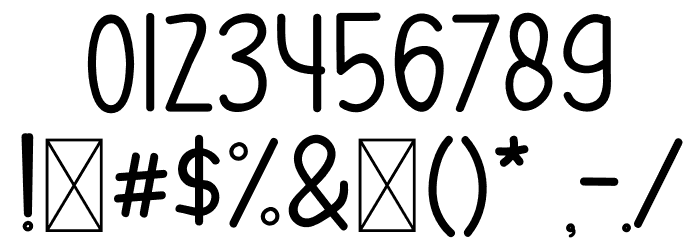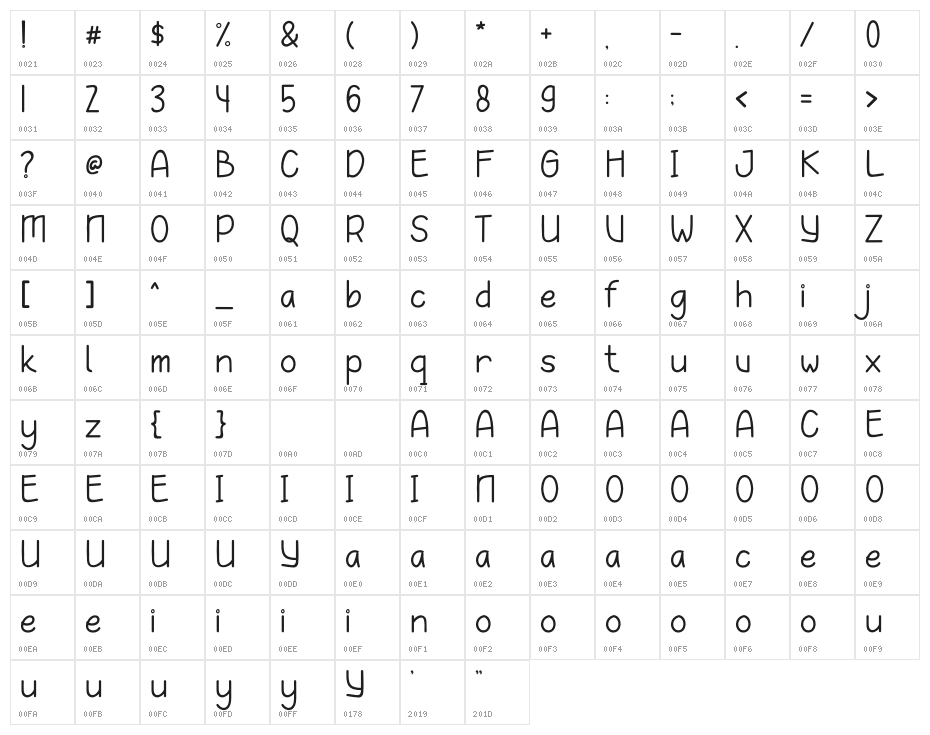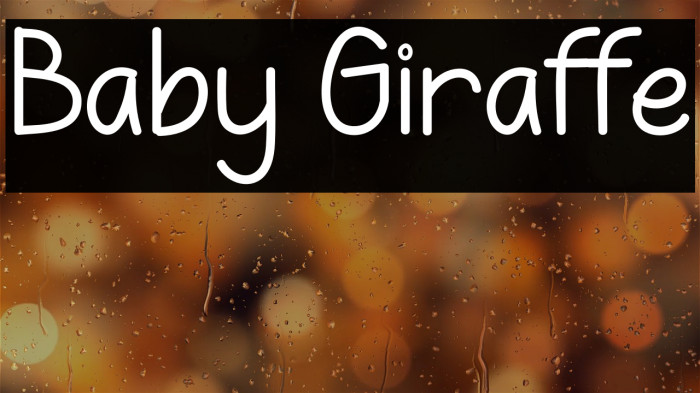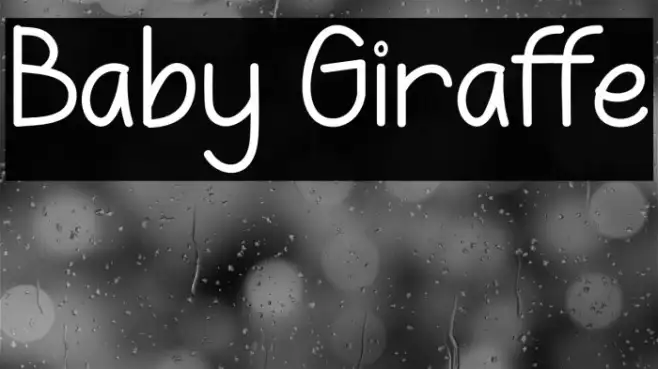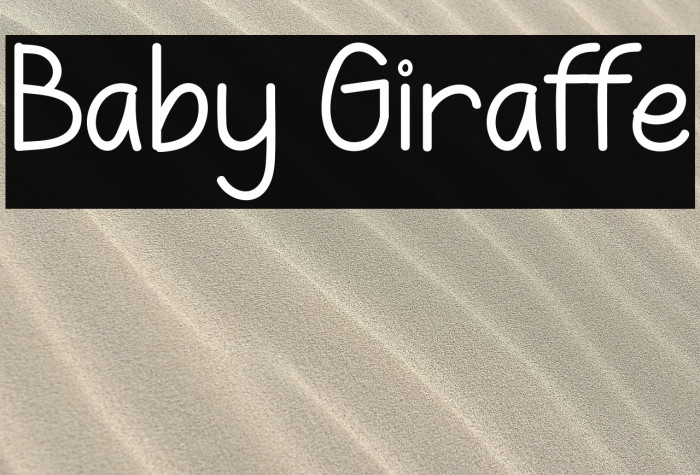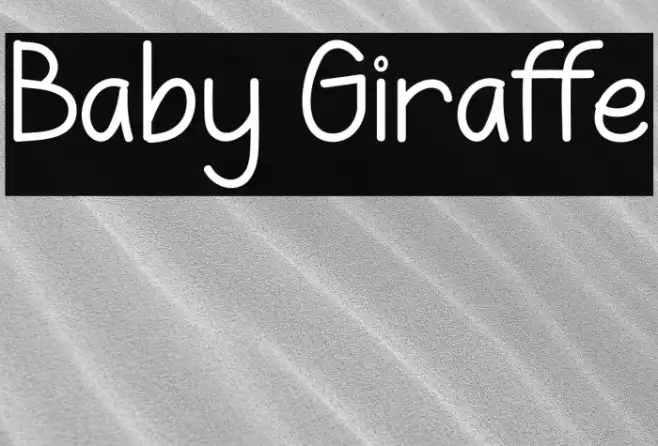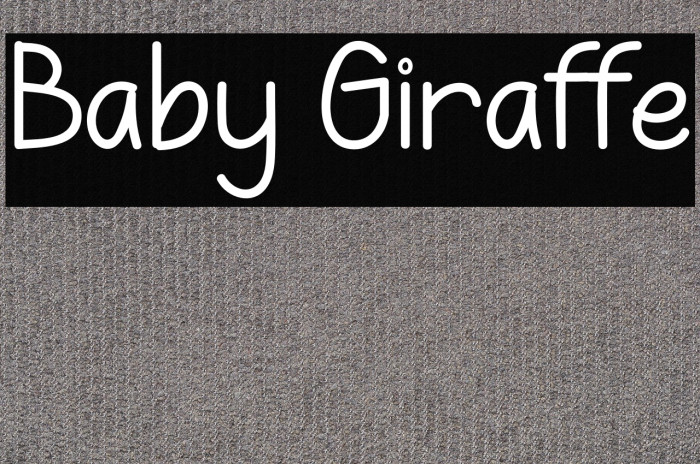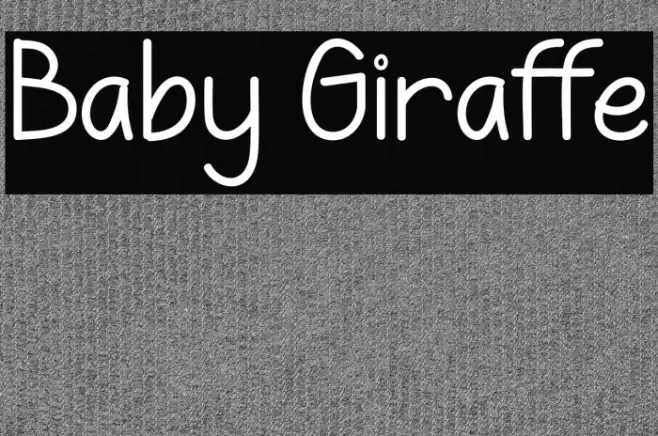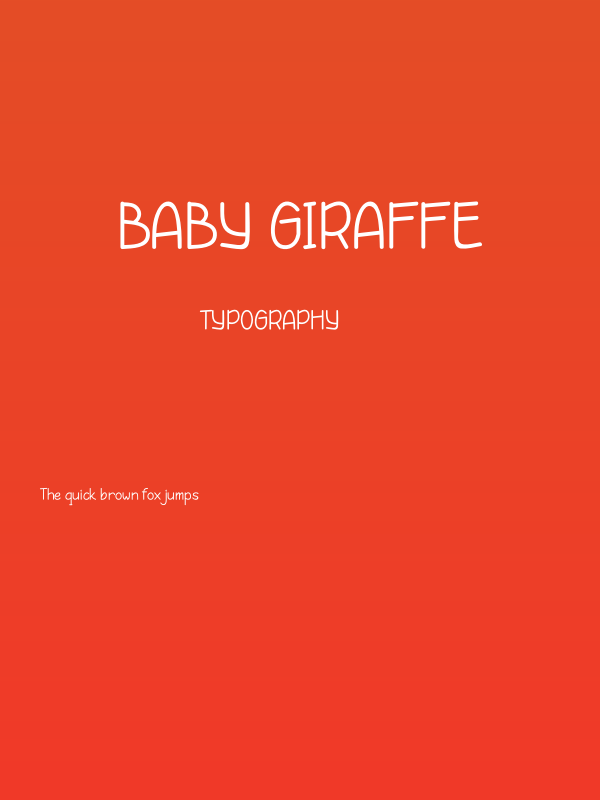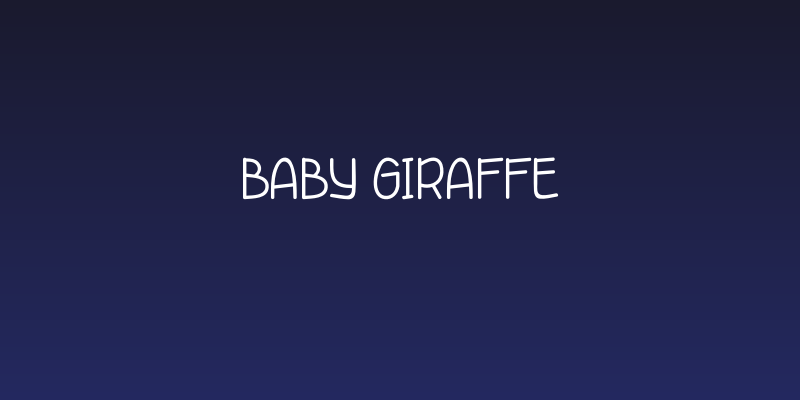
Baby Giraffe Font
Baby Giraffe Description
This playful and whimsical font features a handwritten style with rounded edges and a friendly appearance. The characters are evenly spaced, providing a clean and approachable look. The uppercase letters are slightly taller than the lowercase, maintaining a consistent width throughout. Numbers and special characters are designed to match the overall playful aesthetic, making it suitable for children's content or informal designs. The font's simplicity and charm make it versatile for various creative projects.
Overall StylePlayful
Use CaseHeadlines, Logos, Informal Text
Proposed ProjectsIdeal for children's books, playful branding, greeting cards, and informal invitations.